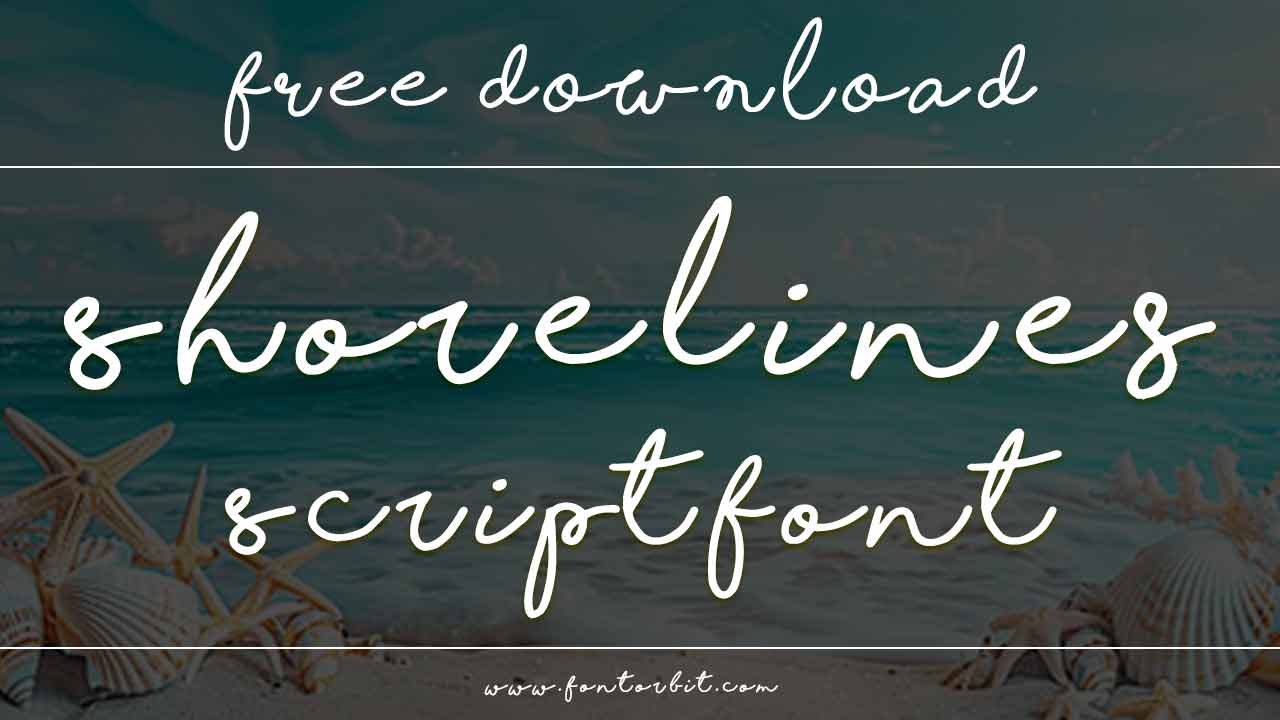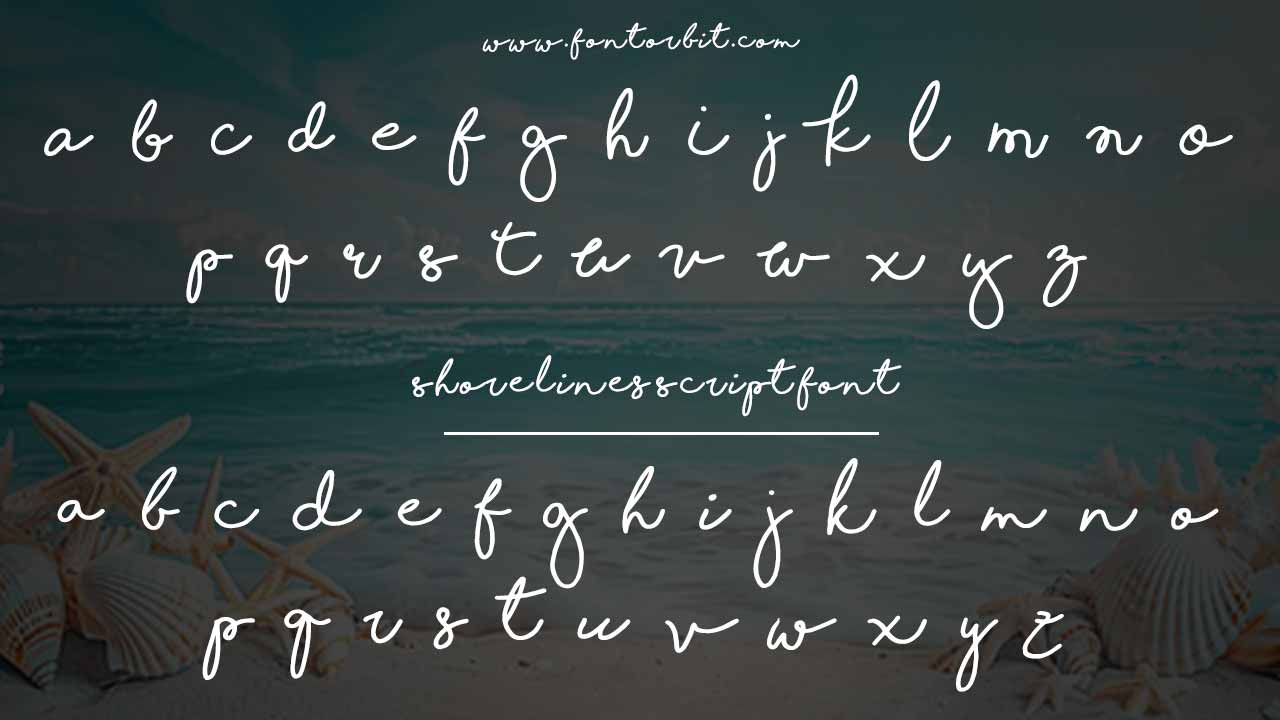
Typography plays a pivotal role in design. Among the countless fonts available, some stand out due to their elegance, versatility, and unique style. One such font that has gained popularity among designers is the Shorelines Script Font. This particular typeface is a beautiful representation of the power of hand-lettering and cursive typography, offering an organic, fluid aesthetic.
Shorelines Script is a unique script font known for its natural and handwritten look. Designed by The Branded Quotes, inspired by sea waves, this cursive font is perfect for adding a personal touch to design projects. Whether you’re working on a logo, invitations, or decorative typography, this font delivers elegance and creativity.
Introduction To Shorelines Script Font
The Shorelines Script is a modern, elegant font with a sophisticated yet playful feel. The font embodies the classic beauty of hand-lettered calligraphy, while offering a more modern and stylized feel that’s easy to read in various contexts. Whether designing a wedding invitation, creating a logo, or crafting a branding kit, this font can elevate your design with its charming personality.
Font Family Variants
- Shorelines Script Light
- Shorelines Script Bold
Key Features Of Shorelines Script Font
One of the standout characteristics of the Shorelines Script Font is its fluid and organic structure. The letters in this font have a smooth, cursive appearance, with elegant flourishes that create a sense of movement and grace. The design mimics the natural flow of handwriting, yet maintains consistency and balance across the characters.
Versatile Weight Variations:
While Shorelines Script is primarily a script-style font, it offers several weight variations to help tailor the look to the specific needs of a design. This flexibility allows you to use the font in various contexts—from bold, eye-catching headers to delicate, subtle body text. These weight options make it a go-to font for both display and small text applications.
Ligatures And Swashes:
Ligatures are special combinations of letters designed to flow seamlessly together. Shorelines Script Font features a variety of ligatures, making it even more adaptable for design projects that require a touch of personalization. It also includes optional swashes, which are decorative strokes attached to some of the letters, giving the font a unique, custom feel. These decorative elements can add a refined touch to any design, whether used in invitations or logos.
Opentype Features:
Wide Language Support:
Best Uses For Shorelines Script Font
Due to its elegant yet contemporary style, it is an incredibly versatile font that can be used in a wide range of design projects. Here are some of the most popular and effective uses for this beautiful typeface:
1. Wedding Invitations And Stationery
One of the most common uses for the Shorelines is in wedding invitations. Its graceful curves and delicate details make it perfect for creating romantic, high-end invitations. You can pair it with a clean serif or sans-serif font to balance the design, ensuring that the text remains readable while still maintaining an elegant feel.
Example: The bride and groom’s names written in Shorelines Script Font would stand out beautifully on the invitation’s header, while the event details can be written in a simpler font for easy readability.
2. Branding And Logo Design
Whether you’re creating a logo for a new brand or revamping an existing one, Shorelines Script Font is a great choice. The font’s stylish, fluid design works particularly well for luxury brands, boutique businesses, or companies that want to project a refined and creative image. By using the font in a logo, you can create a distinctive and memorable visual identity.
Example: Shorelines Script Font could be used for a high-end fashion boutique logo, paired with a minimalistic sans-serif font for the brand name.
3. Greeting Cards And Invitations
From birthday greetings to Happy Holidays and special occasion invitations, Shorelines Script Font adds an elegant and personal touch. Its sophisticated design helps convey emotions such as joy, love, and celebration, making it perfect for cards and invitations of all types.
4. What Makes It Different From Other Script Fonts?
Its natural, handwritten appearance with swashes and extra decorative elements makes it unique.